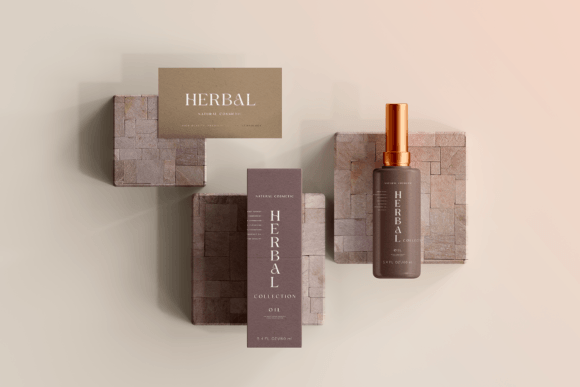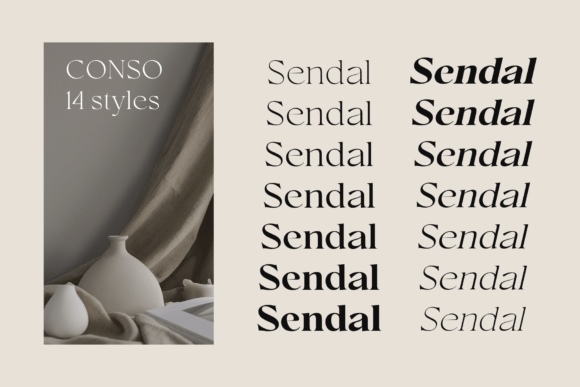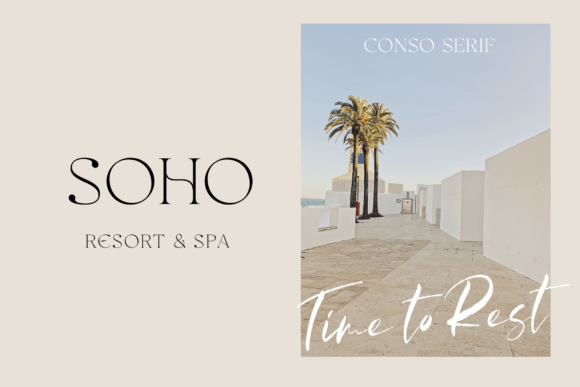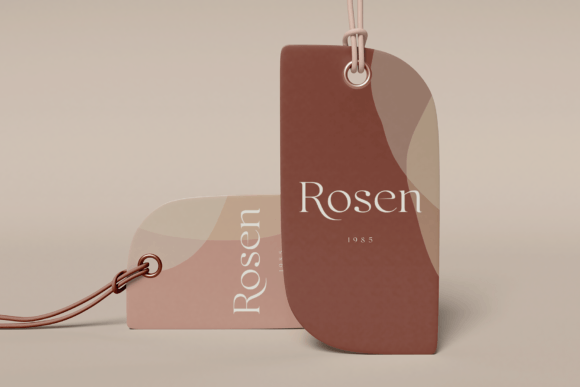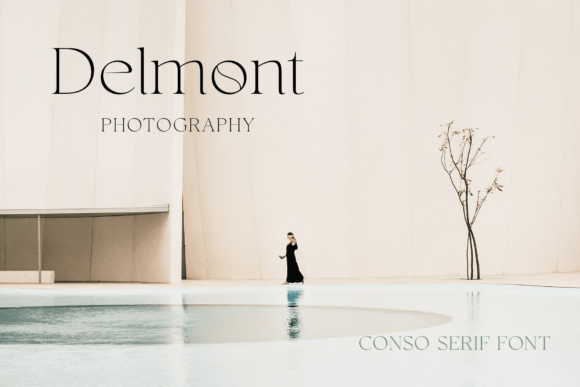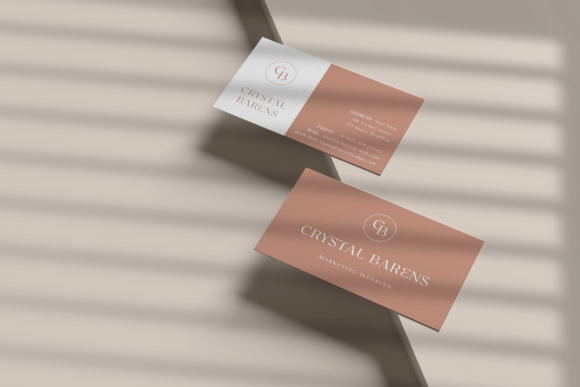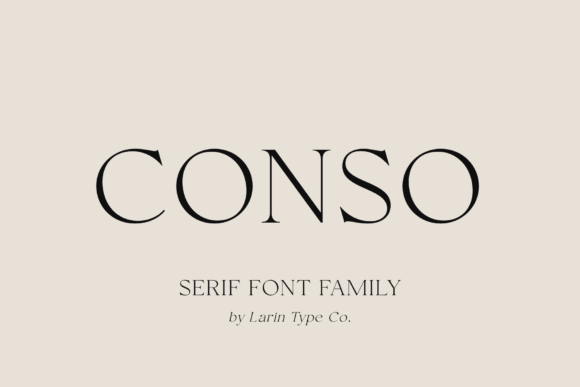
Introducing CONSO Font: Elevate Your Design with Elegance and Versatility
In the world of typography, a font can make or break a design. For designers and crafters looking for a font that embodies elegance, modernity, and versatility, CONSO Font is an excellent choice. As the sequel to the best-selling CONSO sans serif family, CONSO SERIF is a game-changer. This comprehensive font family offers a range of possibilities for various projects, from logos and advertising to book covers and magazines.
A Modern and Contrasting Font Family
CONSO SERIF is an elegant and modern font family designed to meet the needs of designers seeking a sophisticated look. The family includes upright and italic styles, each with seven weights ranging from thin to bold. This extensive range allows for a high degree of flexibility, making CONSO SERIF suitable for a wide array of applications. Whether you’re working on a branding project, a magazine layout, or a book cover, CONSO SERIF provides the perfect blend of style and readability.
Key Features of CONSO Font
- Multi-purpose: CONSO Font is designed to be versatile, making it ideal for various projects, including logos, advertising, packaging, book covers, magazines, headings, and descriptions.
- Contrasted and Modern Design: The font features a contrasting design that adds a touch of elegance and sophistication to any project.
- Easy to Read: Despite its elegant design, CONSO Font remains highly legible, ensuring that your message is conveyed clearly.
- Stylistic Alternates: CONSO includes stylistic alternates with a teardrop-shaped tail for uppercase and lowercase letters, allowing you to add personality and style to your project.
- OpenType Features: The font supports OpenType features, providing advanced typographic capabilities.
Applications of CONSO Font
The versatility of CONSO Font makes it suitable for a wide range of applications. Here are a few ideas to get you started:
- Branding and Logos: Create a lasting impression with a custom logo designed using CONSO Font.
- Advertising: Use CONSO Font in your advertising materials to add a touch of elegance and sophistication.
- Packaging: Elevate your packaging design with CONSO Font, making your product stand out on store shelves.
- Book Covers and Magazines: Use CONSO Font to create eye-catching book covers and magazine layouts that grab attention.
Tips for Using CONSO Font
To get the most out of CONSO Font, here are a few tips:
- Experiment with Weights: Try out different weights to find the perfect balance for your design.
- Mix and Match: Combine CONSO Font with other fonts to create a unique and visually appealing design.
- Take Advantage of Stylistic Alternates: Use the stylistic alternates to add a personal touch to your project.
CONSO Font is a powerful tool for designers and crafters looking to elevate their designs with elegance and versatility. With its modern and contrasting design, extensive range of weights, and advanced typographic features, CONSO Font is the perfect choice for a wide range of projects. Whether you’re working on a branding project, a magazine layout, or a book cover, CONSO Font is sure to impress.